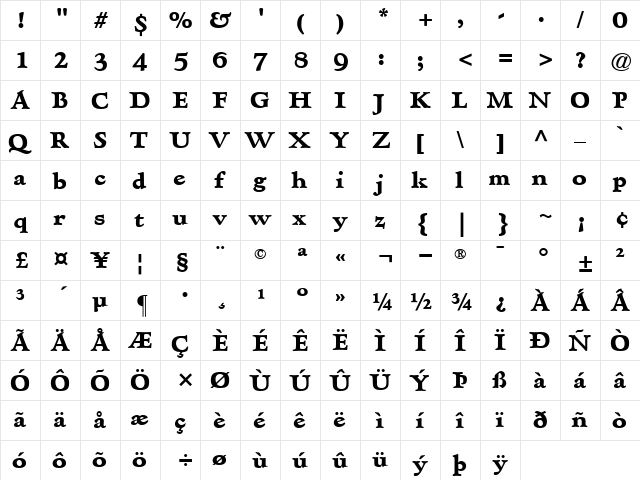
Hadriano-ExtraBold Extra Bold Font Preview
Hadriano-ExtraBold Extra Bold
Hadriano-ExtraBold Extra Bold Font Details
Design Context for Hadriano-ExtraBold Typeface
Hadriano-ExtraBold takes a measured approach to typography — its balanced proportions and neutral character make it a reliable workhorse for both digital and print work. The heavy weight commands attention and anchors typographic hierarchies.